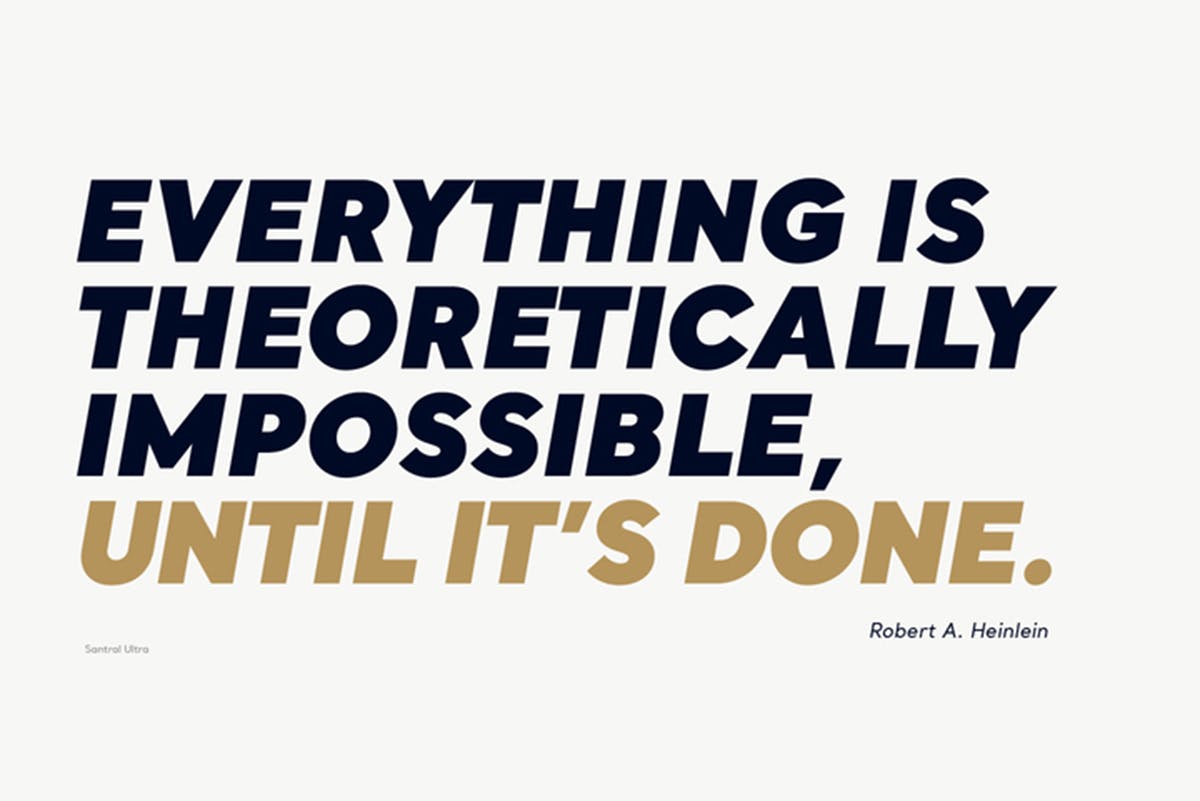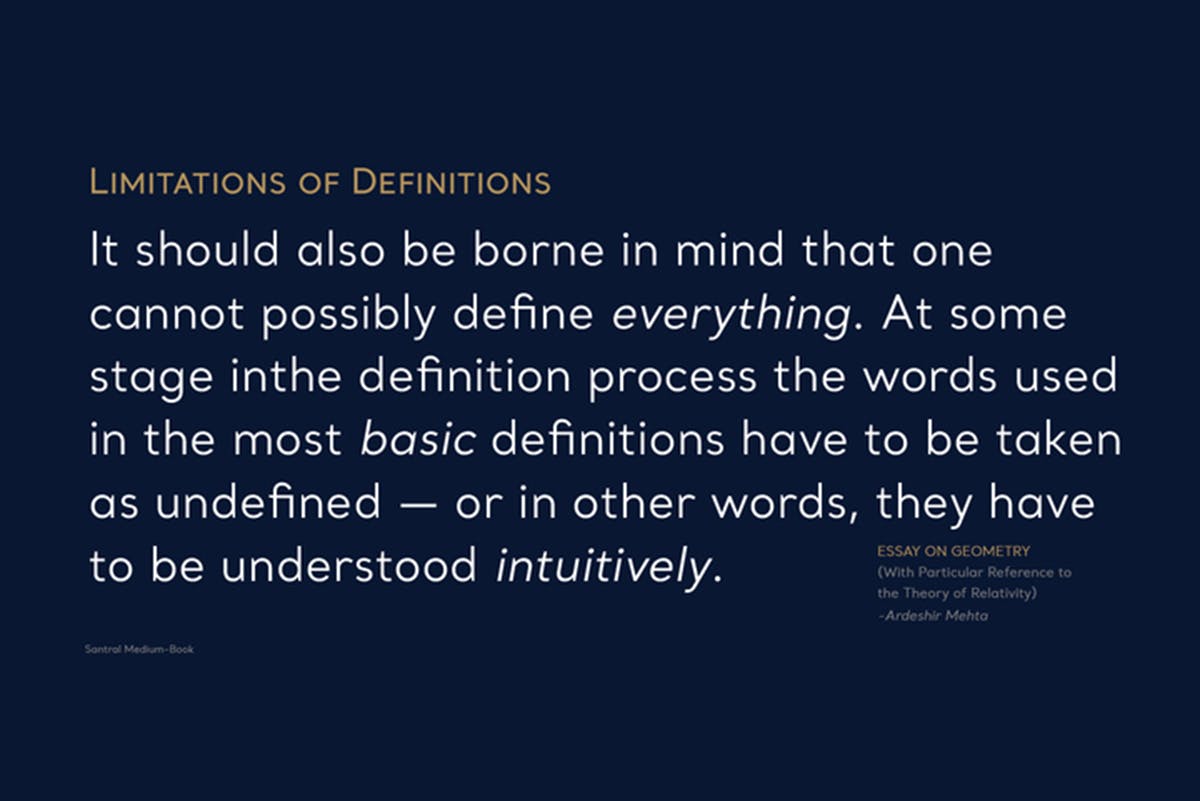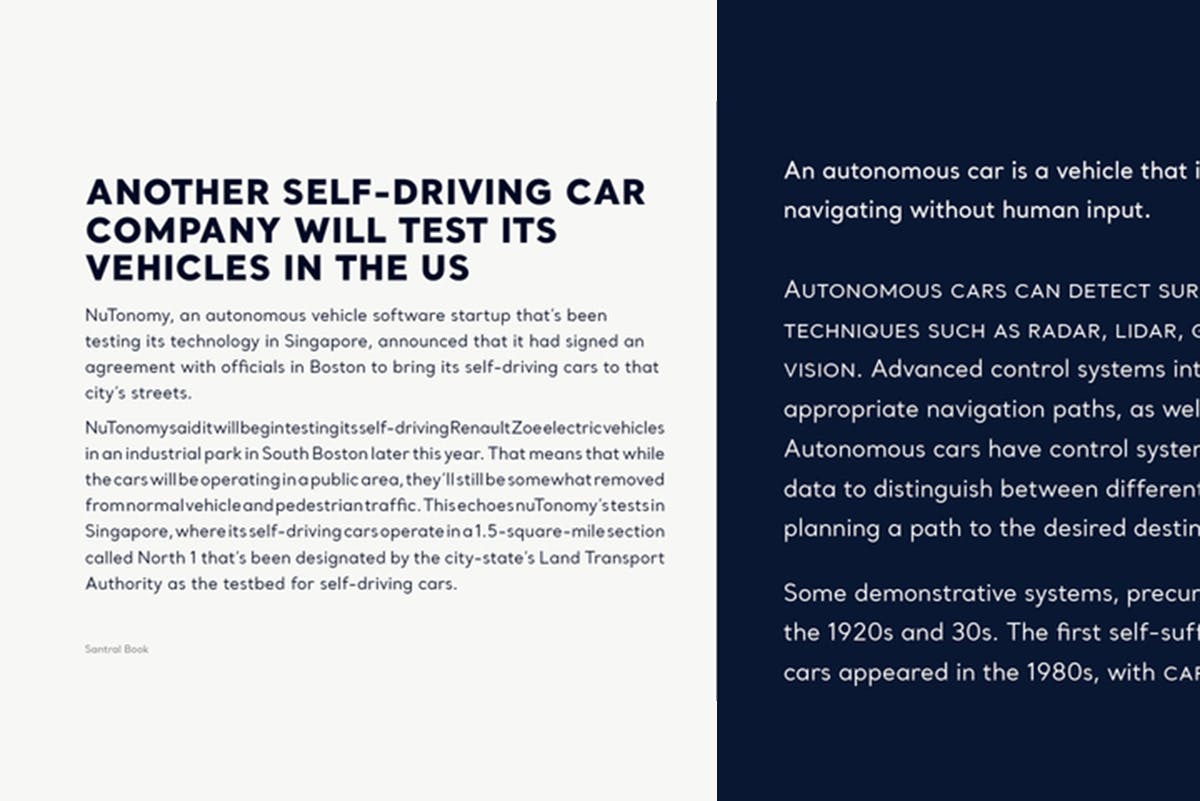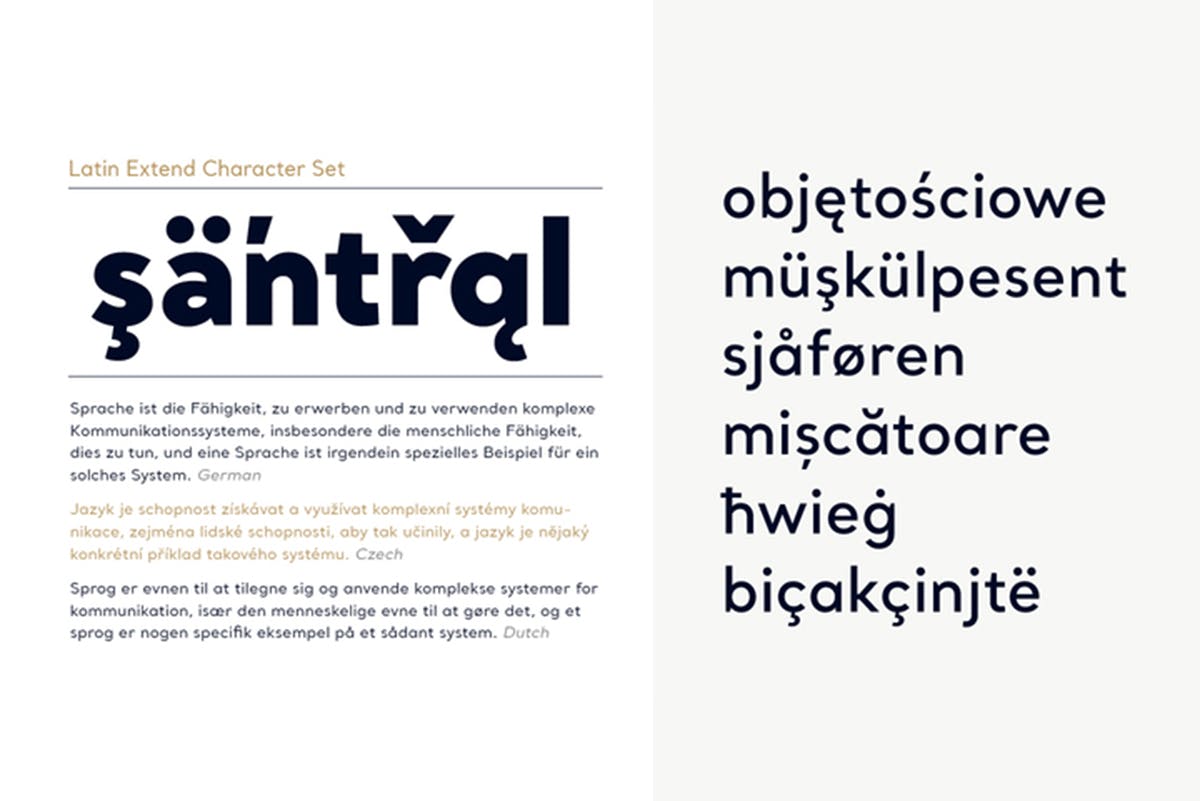
Santral Family Free Demo
Santral Family Free Demo is the part of Santral typeface, A geometric sans family of 24 fonts. This free font is here today to achieve the ideal balance of geometrical perfection and optical impression. The sharp and precise design of Santral leads to a clear and reliable communication with the reader.
Thanks to Taner Ardali for sharing such beautiful demo fonts. So, if you like this freebie, and interesting to all the complete family, then you may want to check on the full version. Moreover, Santral features 12 weights and italic versions, including kerning values and Opentype layout features. In addition, it also provides all typographic equipment to get the best result for the typographic layouts.